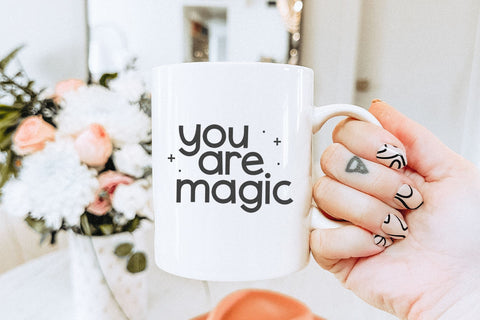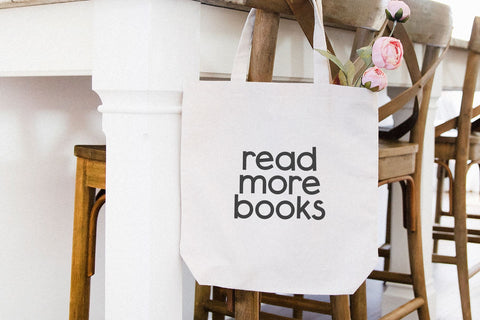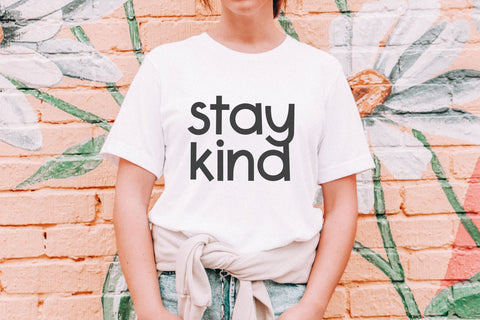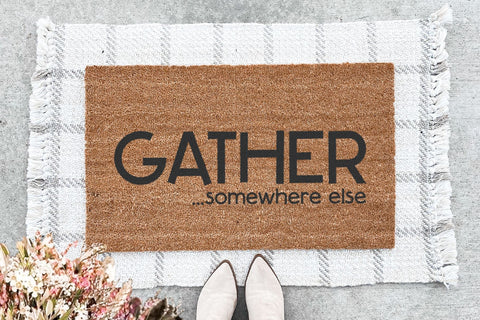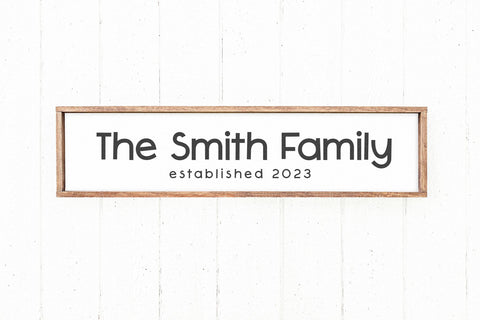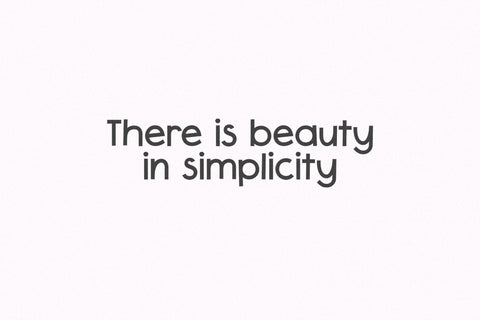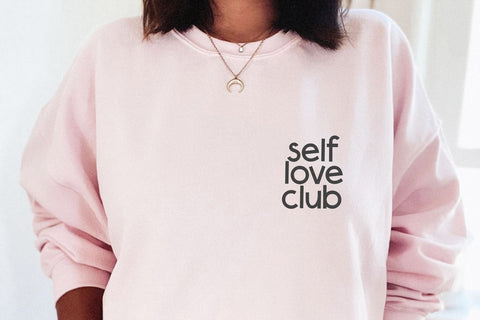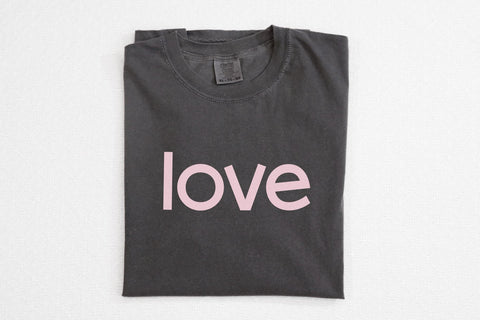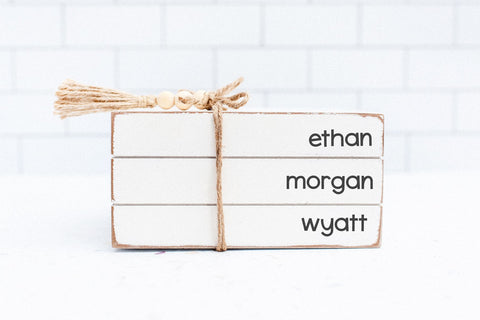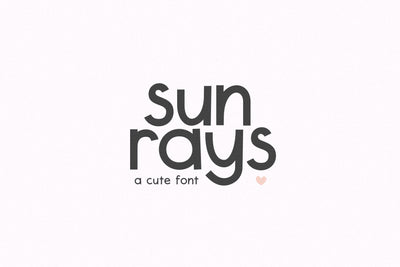
Sunrays - Cute Handwritten Font
Sunrays is a cute handwritten font.
This font is perfect for your craft projects, svg files, procreate, teachers, social media quotes, shirts, stickers, and more!